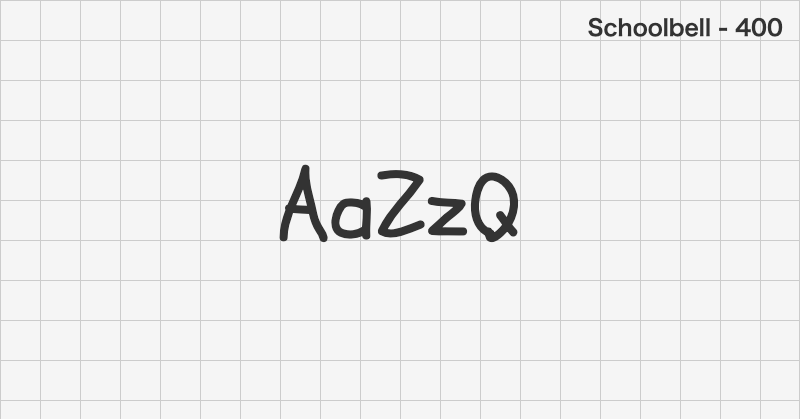
Schoolbell is a playful handwriting font that captures the essence of childhood memories, featuring rounded shapes and whimsical forms. The design evokes a sense of nostalgia, reminiscent of carefree school days.
Schoolbell was developed by Font Diner, aiming to create a lighthearted and cheerful typeface. The font reflects the playful spirit of childhood, making it ideal for informal and fun applications.